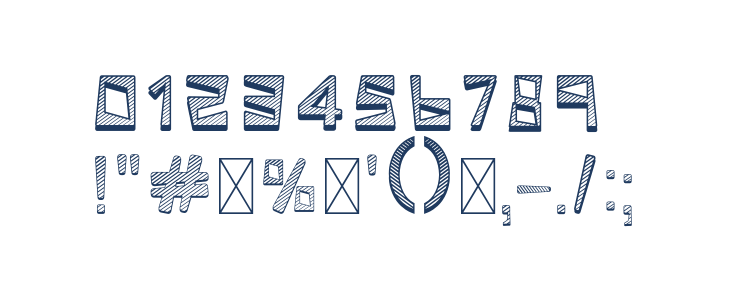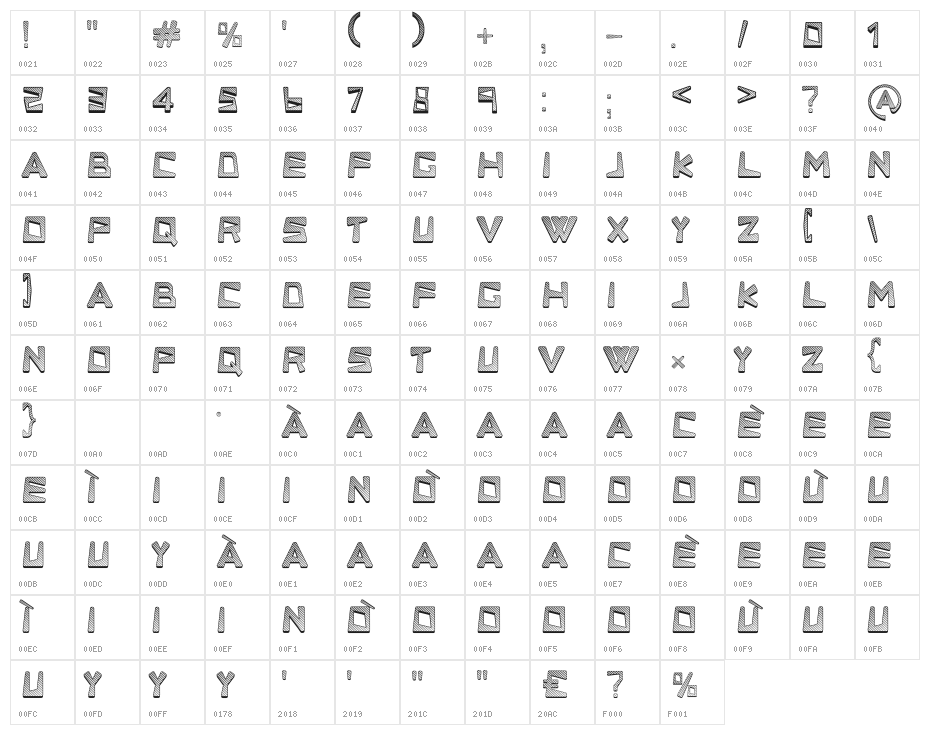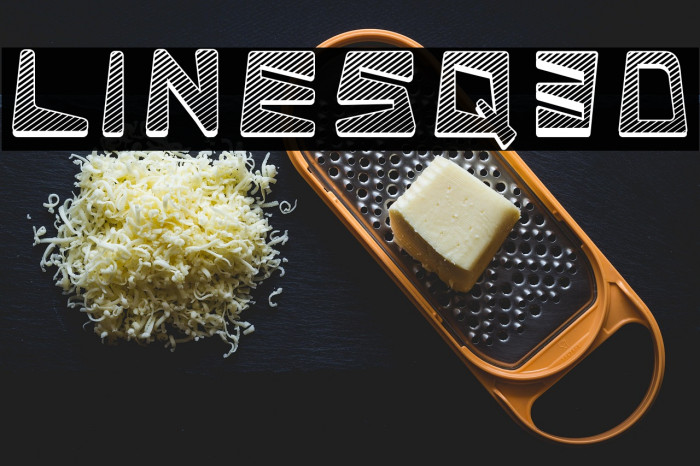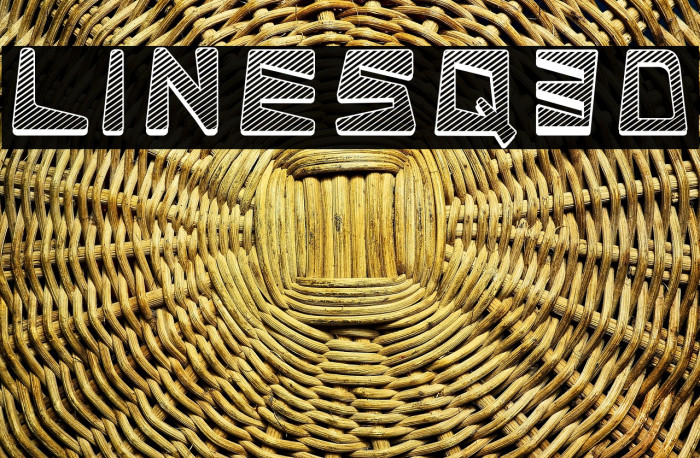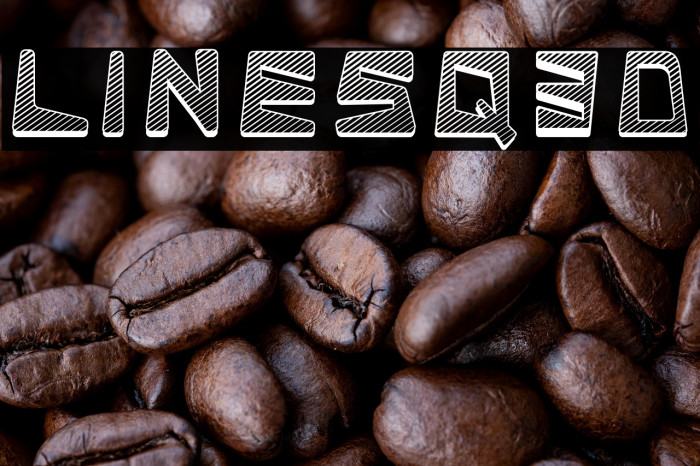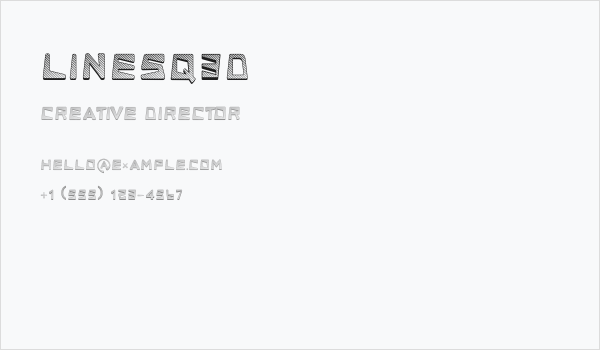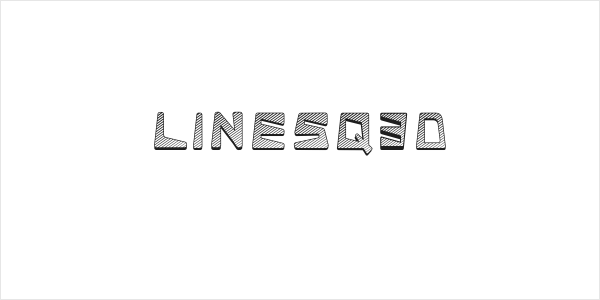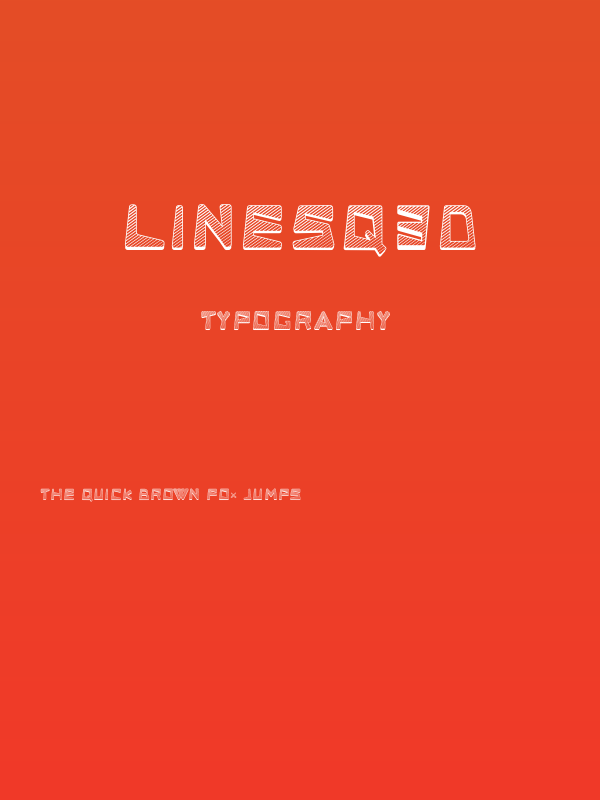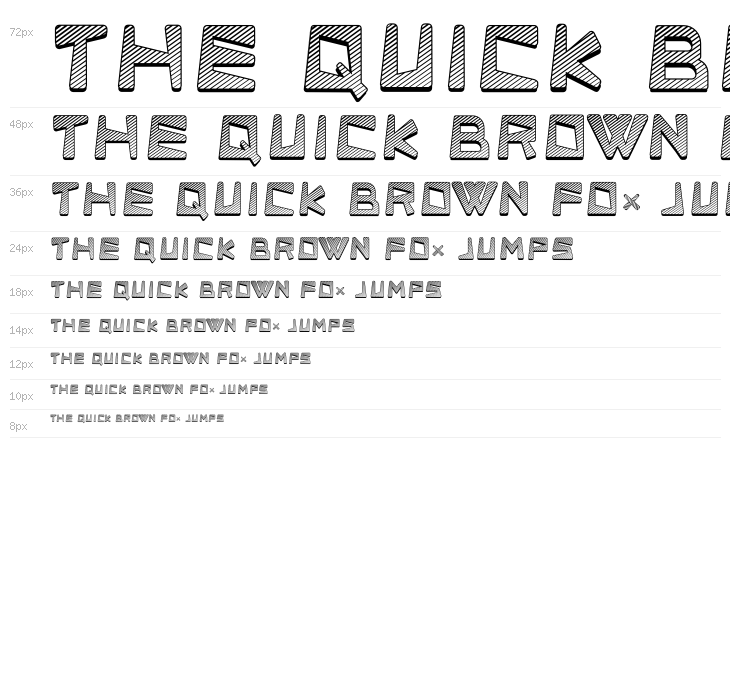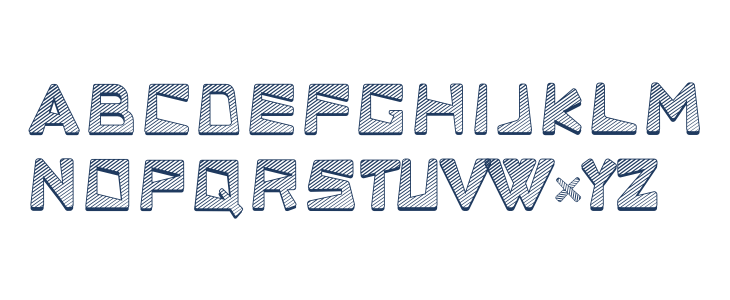
LINESQ3D Font
LINESQ3D Description
This font features a bold, three-dimensional appearance with a distinct lined pattern within each character, giving it a textured and dynamic look. The uppercase and lowercase letters maintain a consistent style, with angular edges and a geometric structure. The numbers and special characters follow the same design principles, ensuring uniformity across the entire set. The font's unique style makes it stand out, with its bold lines and shadow effects creating a sense of depth and movement. This font is ideal for projects that require a modern and eye-catching design.
| Proposed Projects | Ideal for posters, logos, and headlines that require a modern and dynamic look. |